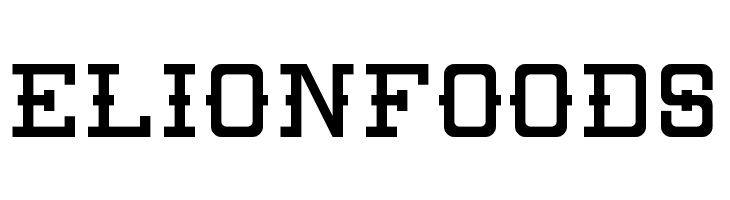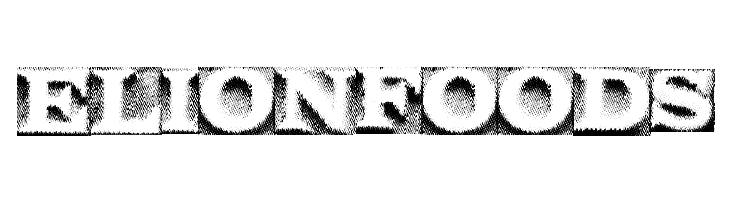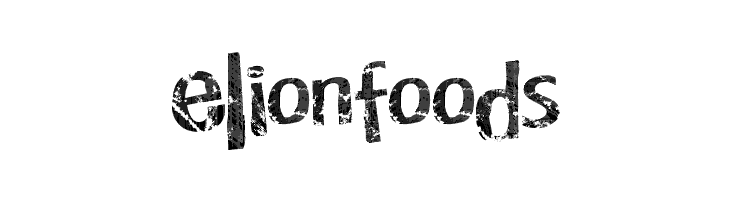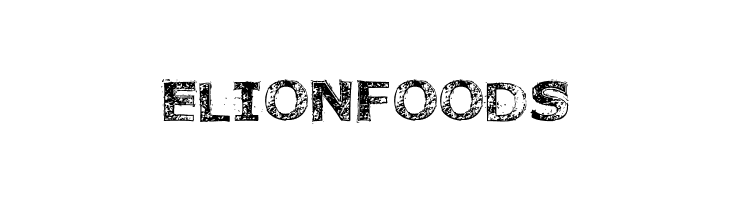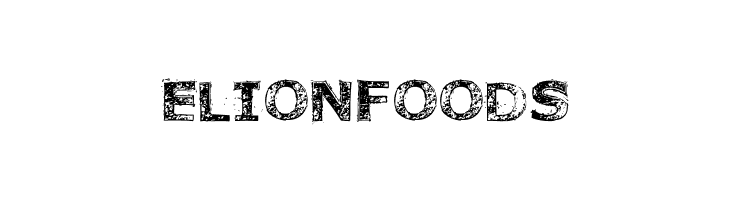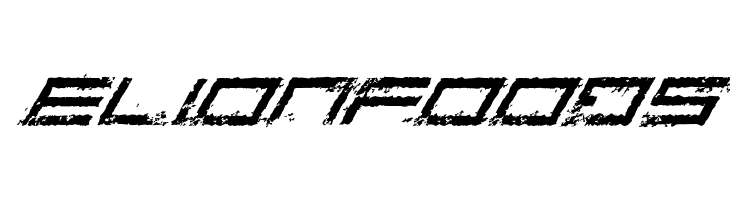
A bold, textured, three-dimensional font with a vintage industrial style.
A bold, stencil-style font with geometric shapes and clear cutouts.
A bold, distressed font with a grunge, industrial style.
A bold, distressed font with a rugged, vintage appearance.
A bold, rugged font with a distressed, vintage style.
A distressed, italicized font with a futuristic, mechanical style.